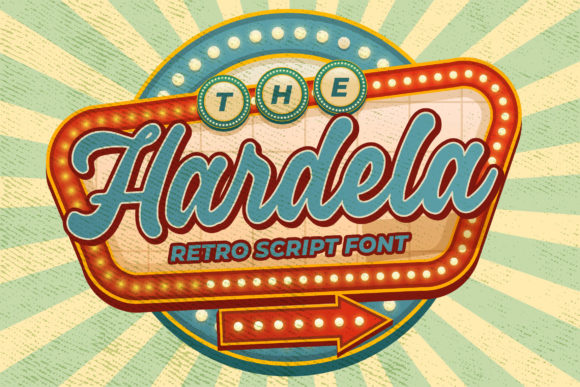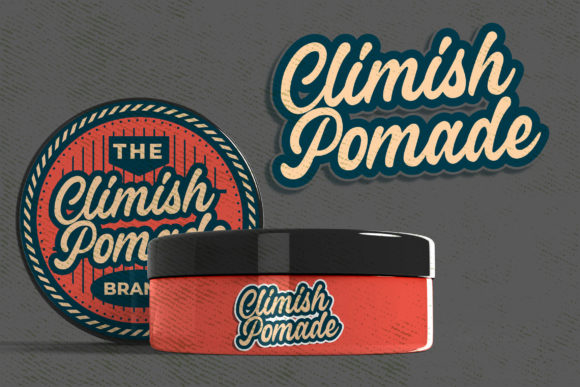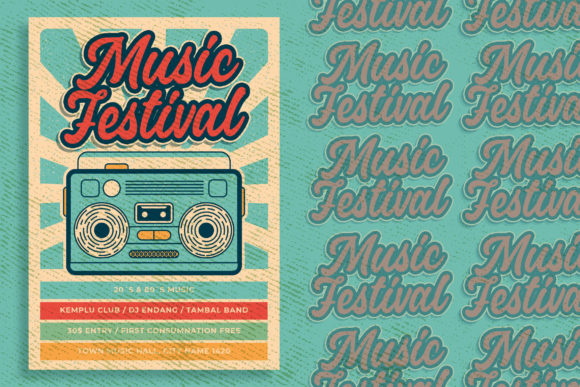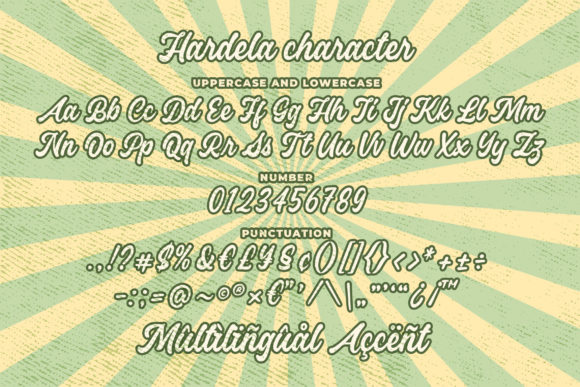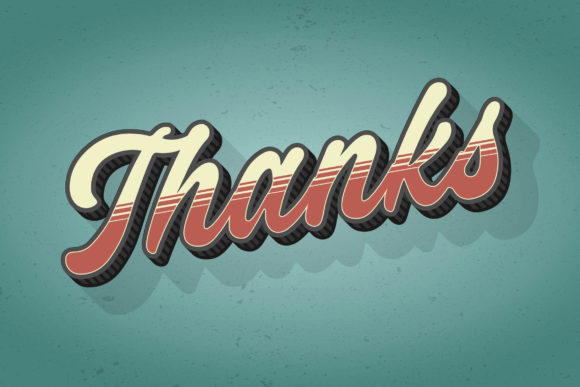
HomeScript FontsHardela Font Script Fonts Hardela Font FacebookTwitterPinterestWhatsApp Hardela Font Poster 2 Hardela Font Poster 3 Hardela Font Poster 4 Hardela Font Poster 5 About Hardela Font Hardela is a beautiful script font with a unique style. It will add a vintage touch to any crafting project! DOWNLOAD NOW People also explored Endeline Script Saturday Font Rybeth Font Ardilas Font Achila Font Mahogany Font Barbara Script Font Shirt Mockup Styled Stock Photography Stock Photo Salmon Salad Font 141 0 TagsHardela Font Previous articleTakaria FontNext articleAtaro Font LEAVE A REPLY Cancel reply Comment: Please enter your comment! Name:* Please enter your name here Email:* You have entered an incorrect email address! Please enter your email address here Website: Save my name, email, and website in this browser for the next time I comment. Personal Use Free Salmoni Personal Use Free Read more about this font Andolas Personal Use Free Read more about this font Manhattan Personal Use Free Read more about this font Retro Poster Personal Use Free Read more about this font BLOG Using Fonts in Digital Marketing: Tips to Strengthen Your Brand Identity In the realm of digital marketing, every visual element plays a crucial role in shaping a brand's identity, and fonts are no exception. The... Best Fonts for T-Shirt Design – Top 2025 Picks Transform Your Website: Elevate Your Typography with 7 Best Web Font Generators Top 7 Google Fonts Alternatives for Faster and Privacy-Friendly Web Design (2025)